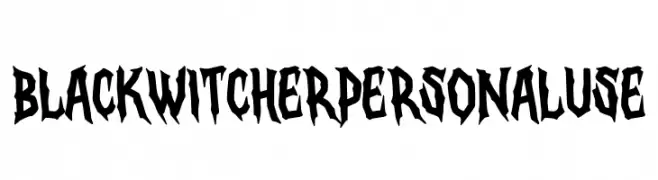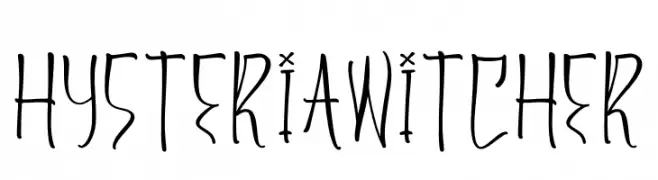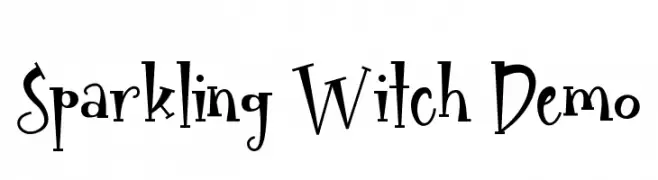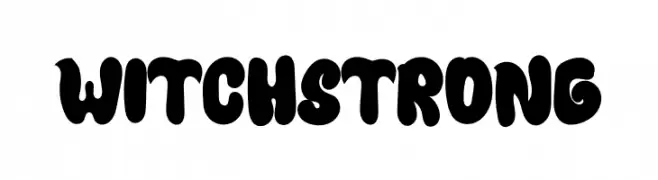
A bold, italicized font with high contrast and dynamic angles.
A whimsical and playful font with tall, narrow letters and exaggerated curves.
A bold, textured font with a distressed, grunge-like style.
A bold, jagged font with a gothic, dramatic style.
A bold, rounded font with a playful and whimsical style.
A spooky, hand-drawn font with jagged edges and a ghostly appearance.
A whimsical, hand-drawn font with tall, narrow characters and an artistic flair.
A quirky, hand-drawn font with jagged edges and a playful, whimsical style.
An elegant, flowing script font with smooth, cursive letterforms.
A bold, dripping font perfect for horror-themed designs.